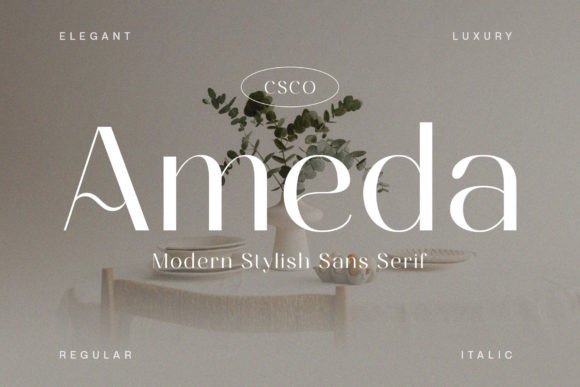
Introducing Ameda: Crafted by the talented team at craftsupplyco, this font is the epitome of modernity and style. Ameda, a sensational sans-serif font, effortlessly blends high contrast with sophistication, leaving a lasting impression on your designs.
Elevate your creative projects to new heights with Ameda's attention-grabbing style. Its unique characteristics add an exhilarating flair, making your work stand out from the crowd. With this font, you have the power to captivate your audience and leave them in awe.
Whether you're creating greeting cards, packaging, brand identities, posters, or any design project, Ameda is your perfect companion. It brings an air of elegance and trendiness to every piece. The versatility of this font allows you to experiment and play, unlocking infinite possibilities for your imagination.
With Ameda, your designs will be transformed into eye-catching masterpieces. Its sleek and modern lines exude confidence, while its refined curves add a touch of class. This font effortlessly communicates your message, leaving a lasting impact on anyone who lays eyes on it.
The carefully curated details of Ameda ensure that your designs remain fresh and contemporary. Its captivating appeal draws the viewer in, sparking curiosity and creating an emotional connection. Let Ameda be the driving force behind your artistic journey, pushing boundaries and inspiring greatness.